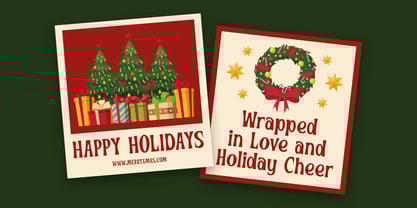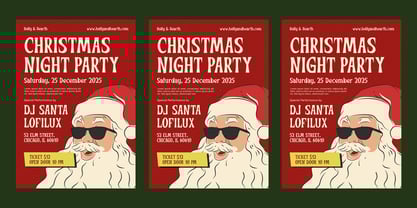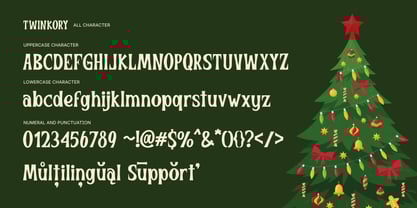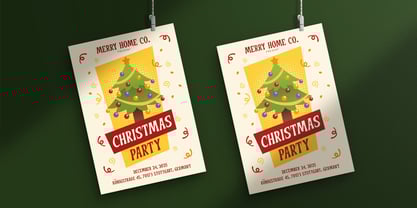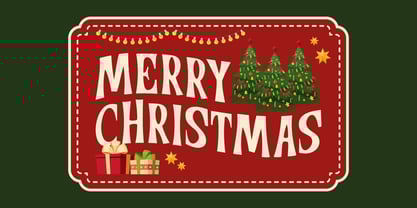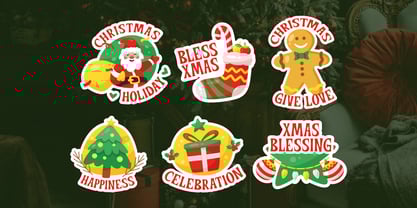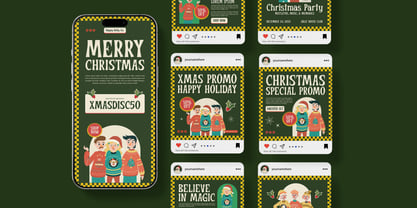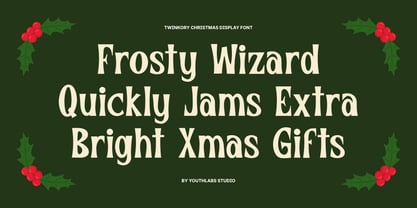
Twinkory
by Youthlabs
The Twinkory Font Family was designed by Fathi Al Ghazi and published by Youthlabs. Twinkory contains 1 styles. More about this family
Introducing Twinkory Display, a playful and joyful Christmas font that captures the warm and festive spirit of the holiday season. With its bold yet friendly letterforms, Twinkory Display brings cheer to any design — perfect for greeting cards, holiday posters, packaging, party invitations, and cozy branding projects. Each character is crafted with a touch of whimsy and vintage Christmas charm, making it ideal for projects that need both festivity and personality. Whether you’re creating a merry logo, social media post, or DIY craft print, Twinkory Display adds the sparkle of Christmas magic to your design. ✨ Key Features: Playful festive display style Uppercase & lowercase characters Perfect for Christmas and winter themes Great for greeting cards, posters, and packaging Clean vector-based design Compatible with Adobe, Canva, and other design tools Multilingual support PUA Encoded
Designers: Fathi Al Ghazi
Foundry: Youthlabs